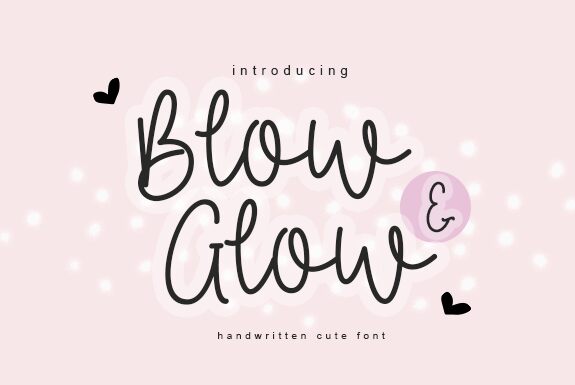
Blow Glow, designed by Danar Nugroho, is a delightful and whimsical font. Its light weight adds a touch of playfulness to any design project.
With its cute handwritten style, Blow Glow is perfect for children's books, greeting cards, and invitations. It brings warmth and charm to logos and branding materials for creative businesses like art studios or boutique shops. This font type also shines in social media graphics, blog titles, and website headers, adding a personal and inviting touch.
Blow Glow is the ideal choice when you want to infuse your designs with a sense of joy and lightheartedness.